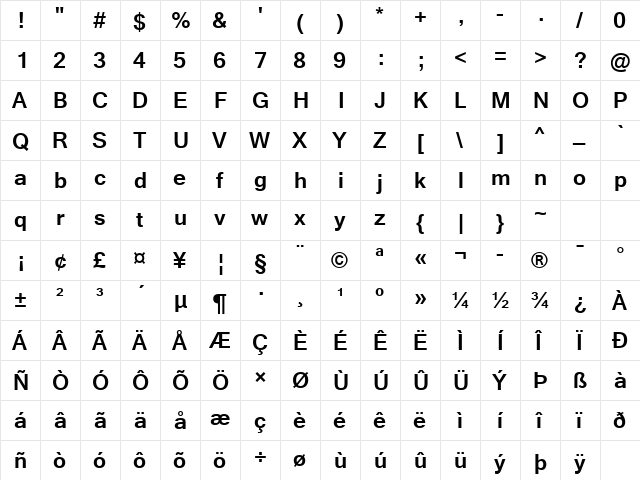
Gautami Bold
Design Context for Gautami Typeface
Gautami offers clean, dependable letterforms without strong stylistic allegiance, making it a practical choice for designers who need flexibility. Its bold stroke weight gives it real presence on the page.